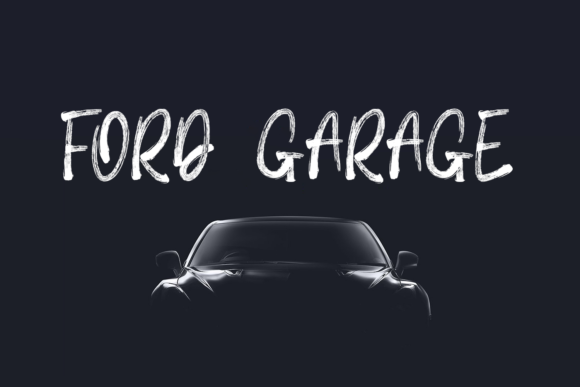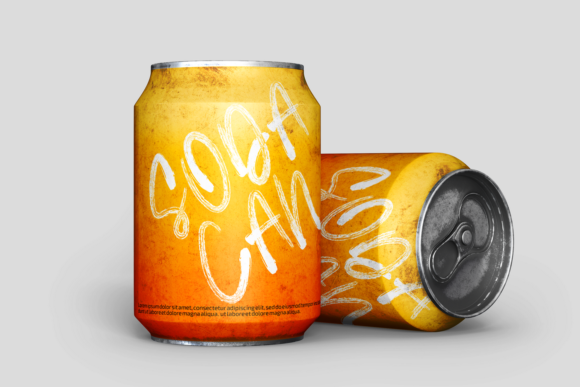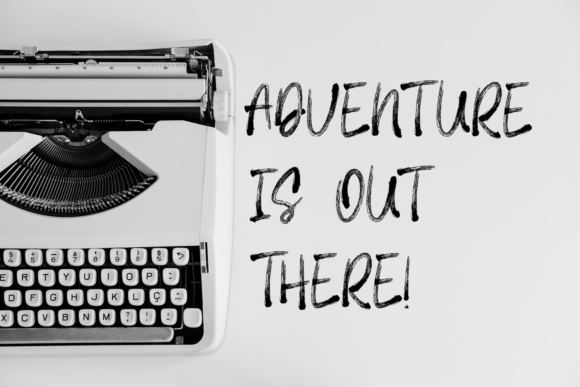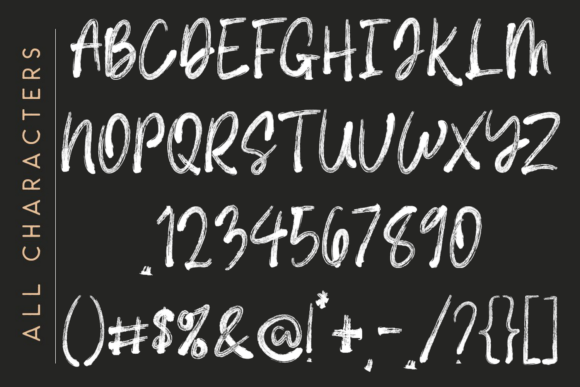
Introduction to Royal Textured Font
Royal is a chunky, unique handwritten font, designed with the help of an outstanding brush pen.
Its friendly and casual style makes it fit for a wide spectrum of designs No matter the topic, Royal will elevate your project to the highest levels.